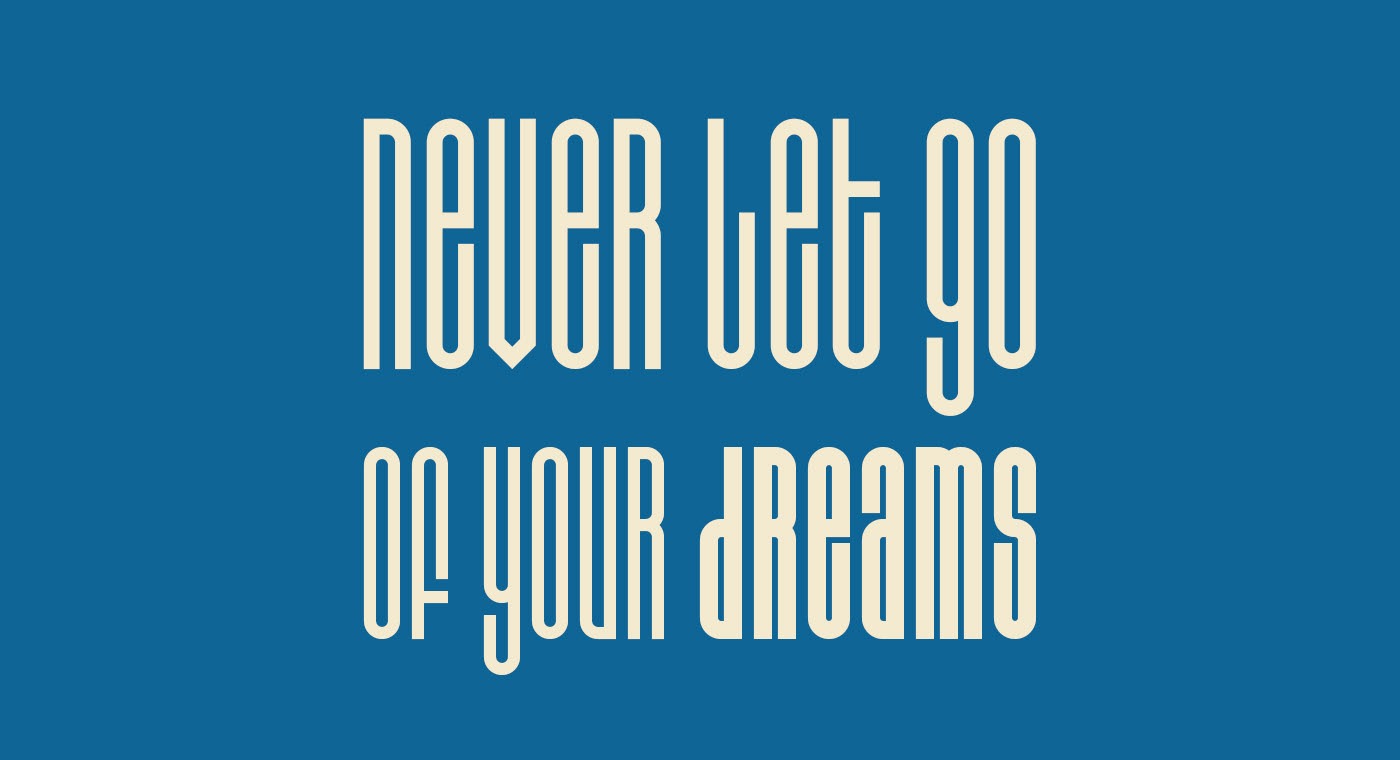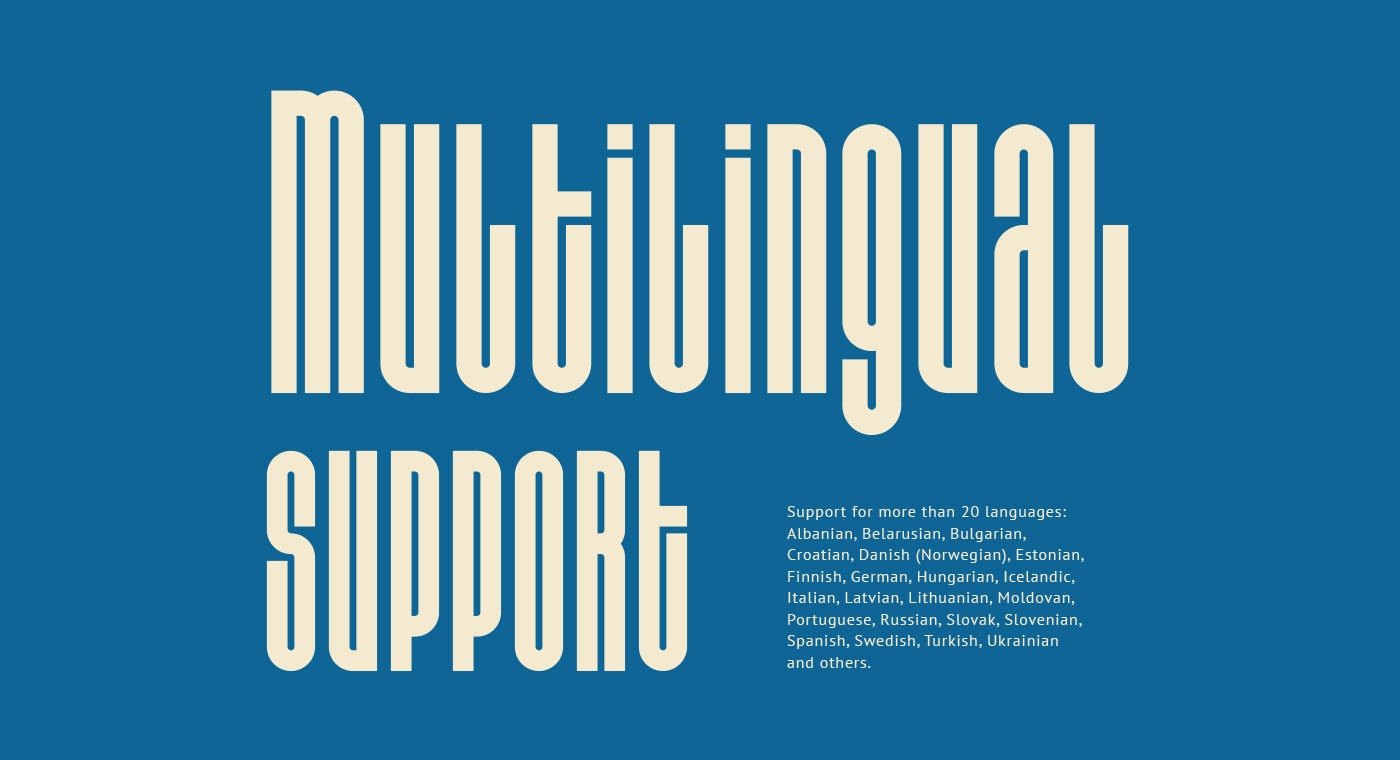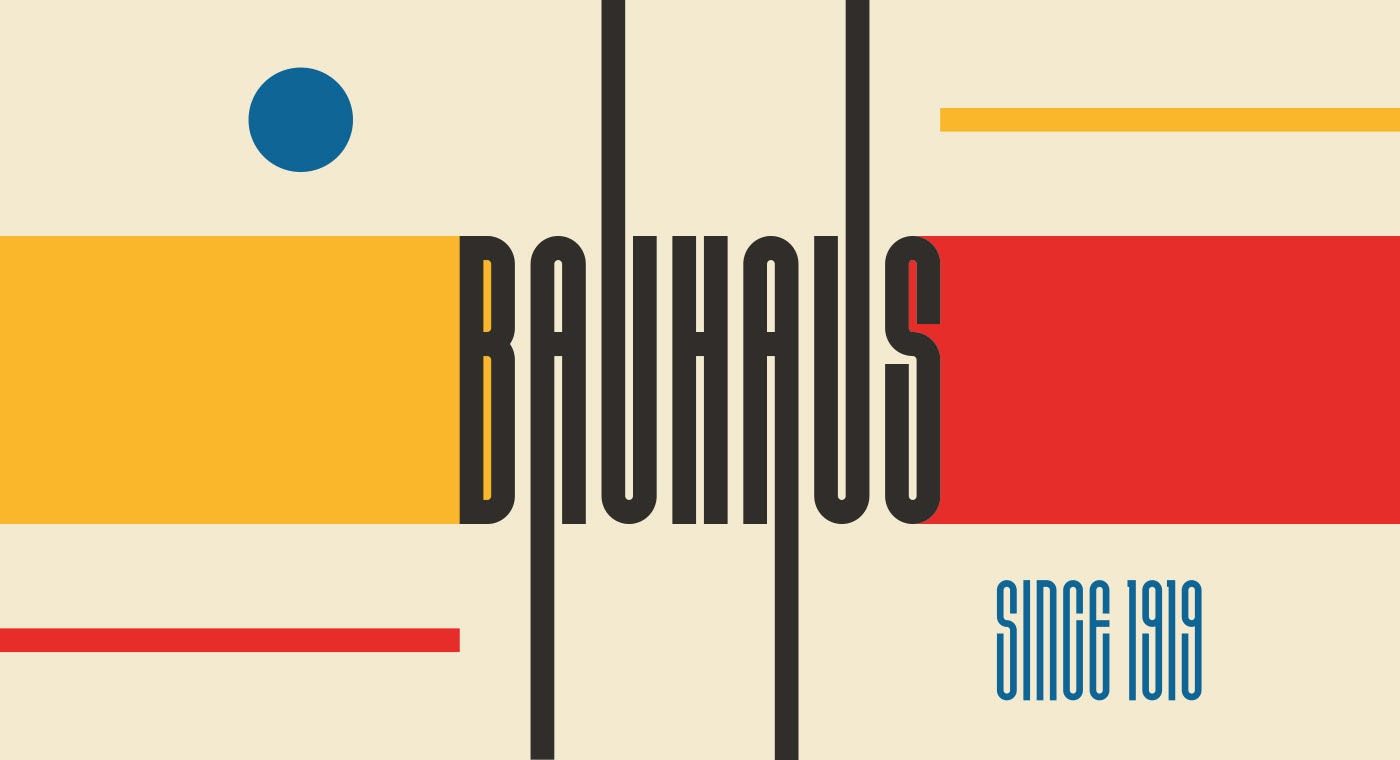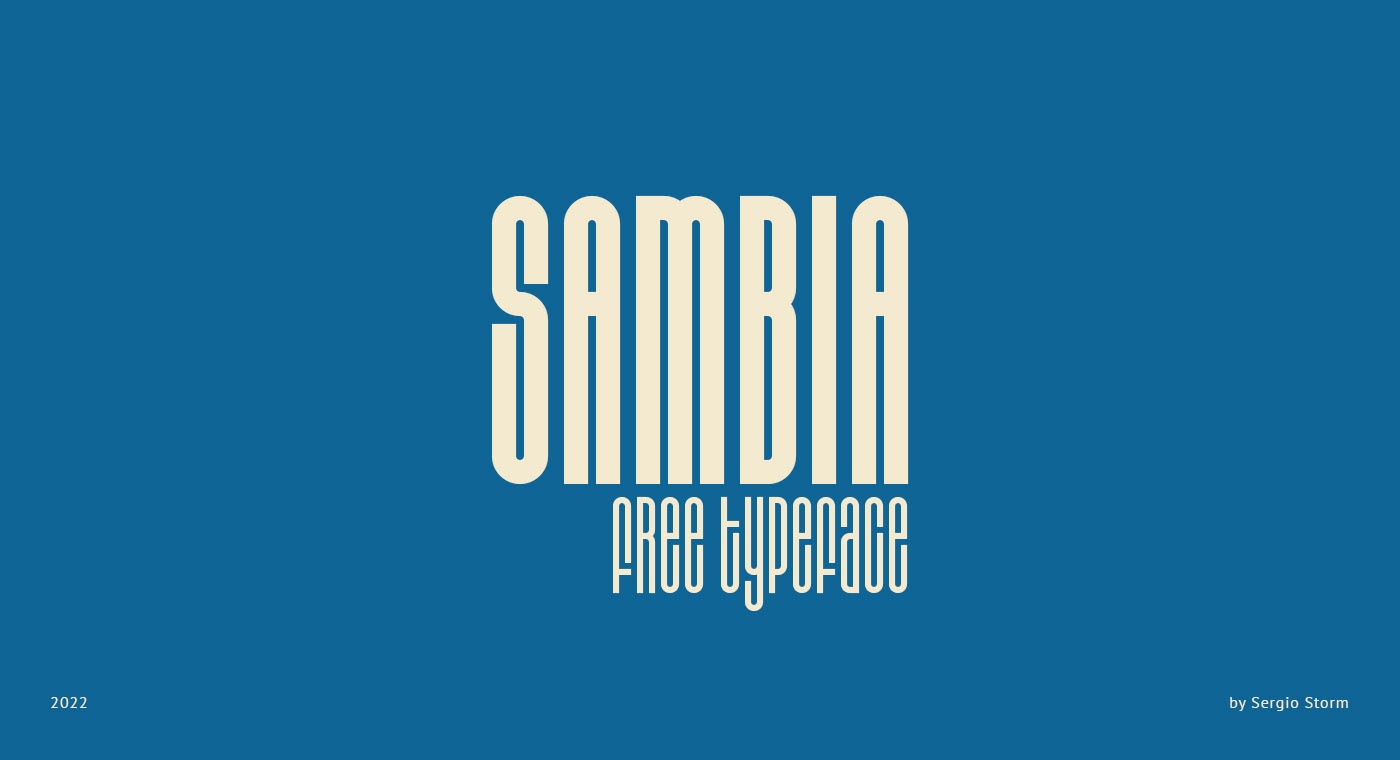
Sambia Display Font is a modern sans serif to complement every project you’re working on. The font family consists of regular and bold fonts. Typeface is great for headlines, logos and posters. The typeface is inspired by the Bauhaus style and tributes to the first half of the 20th century era. It has concise rounded forms, geometricity and a small letter-spacing.